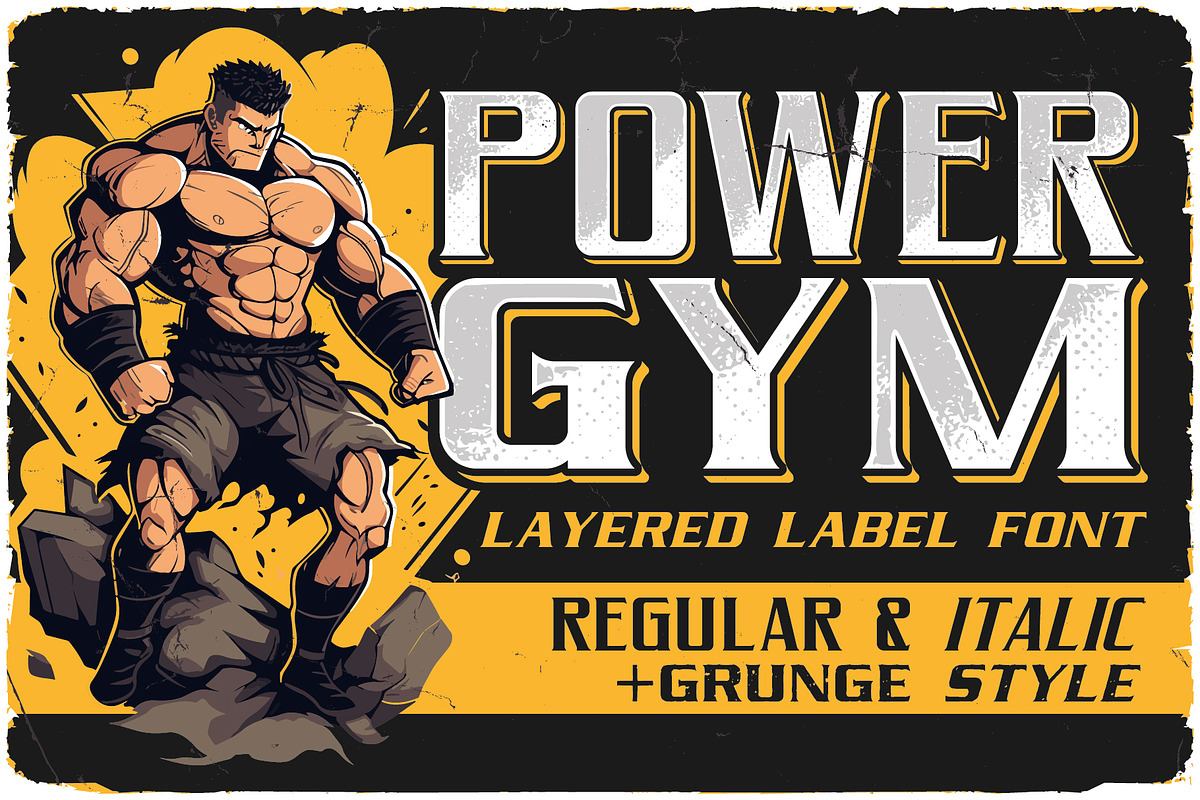
Power Gym Layered Font Free Download is a bold, high-impact typeface built for strength and performance. Designed with fitness brands, gym signage, supplement packaging, and active lifestyle content in mind, this layered font delivers maximum visual power with every letter.
Its layered style lets you create dimensional, eye-catching text perfect for posters, logos, apparel, or any design that needs to pump up the energy. The rugged structure and athletic aesthetic make it ideal for conveying intensity, motion, and motivation.
Designers love Power Gym for its versatility and bold presence—whether you're crafting a hardcore fitness campaign or a sleek gym brand. Push your designs to the limit—download Power Gym Layered Font Free Download and flex your creative muscle with every project.